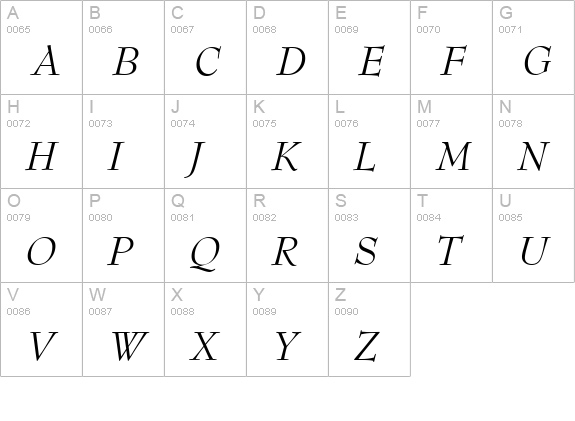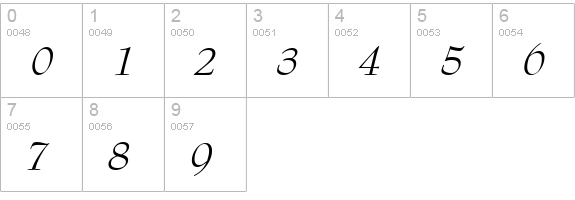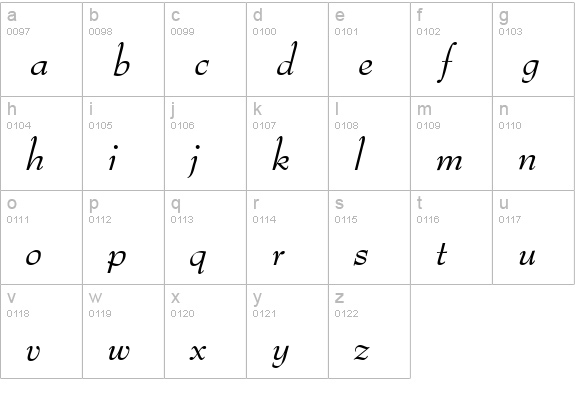
BernhardModern-Italic is a distinctive, italic variant in the BernhardModern typeface family \xE2\x80\x94 well suited to design and typography projects.
BernhardModern-Italic font is a stylish and elegant typeface that exudes sophistication and class. Its sleek and modern design makes it perfect for a wide range of design projects, from branding to editorial layouts. The italic style adds a touch of flair and uniqueness to any text, making it stand out from the rest. What's even better is that BernhardModern-Italic font is available for free download at FontsMarket.com. This means you can easily access this beautiful typeface and use it in your projects without any cost. Don't miss out on this opportunity to elevate your designs with the stunning BernhardModern-Italic font.